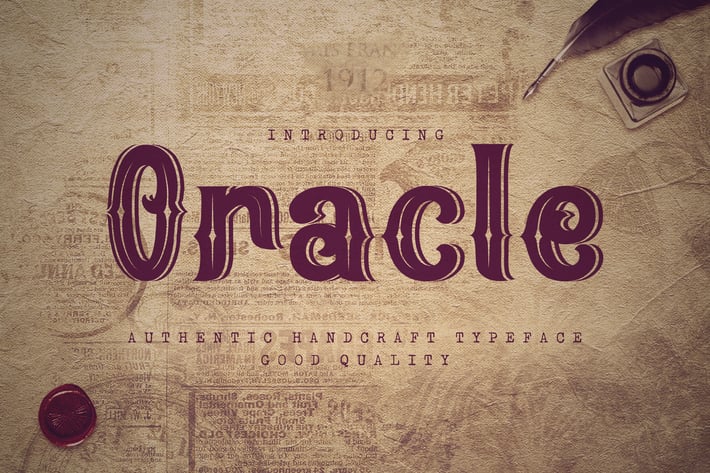
Oracle - Authentic Vintage Inline Font
Introducing Oracles font. Are you looking for a bold handlettering font that has a vintage feeling? We can help! Try to download our oracles font. The font is manually handcrafted with love. We provide two version, inline and regular version. Suitable to use for any occasion such as branding, poster, quote, logo, movie, music, invitation and others :)